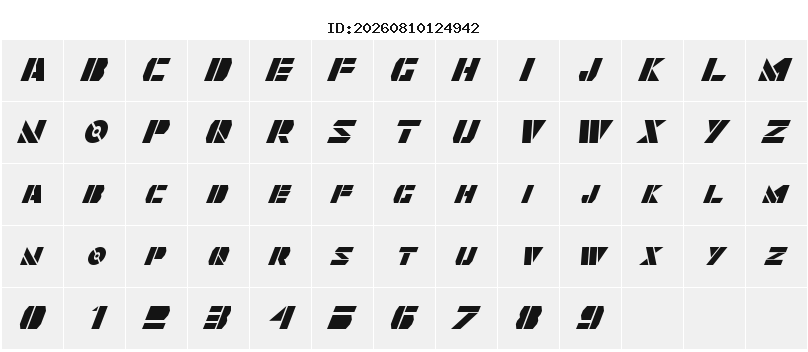
• Font Name: Quintanar Oblique
• Full Font Name: Quintanar Oblique
• Version: Version 1.00 July 5, 2011, initial release
• Designer: Neale Davidson
About Quintanar Oblique.ttf
Quintanar Oblique.ttf is a modern, elegant sans-serif font designed for ultimate readability and visual harmony. Perfect for branding, headlines, web design, and print materials.